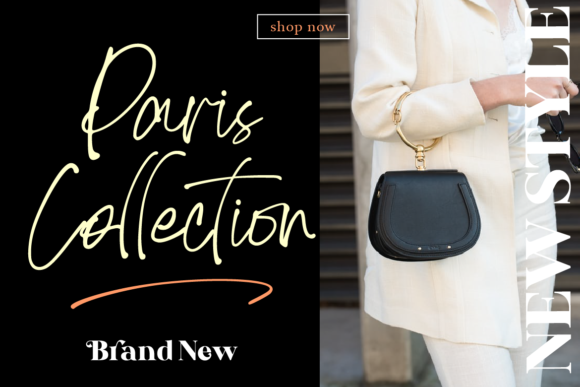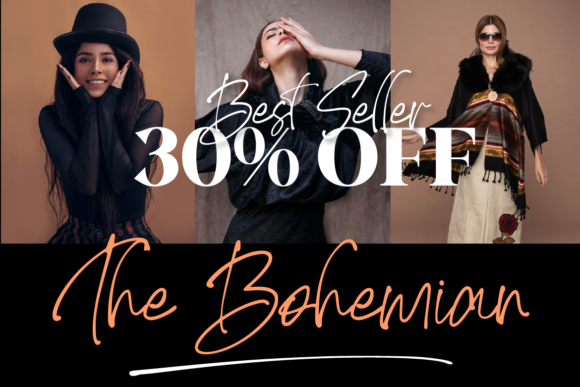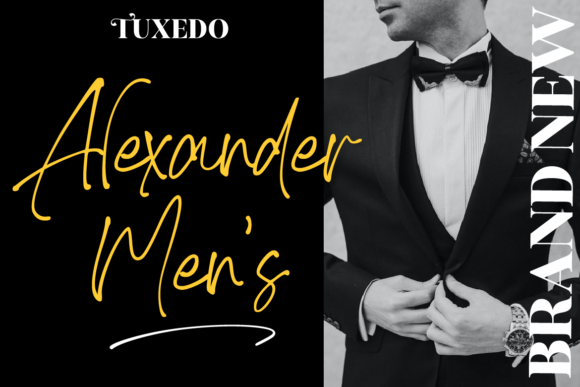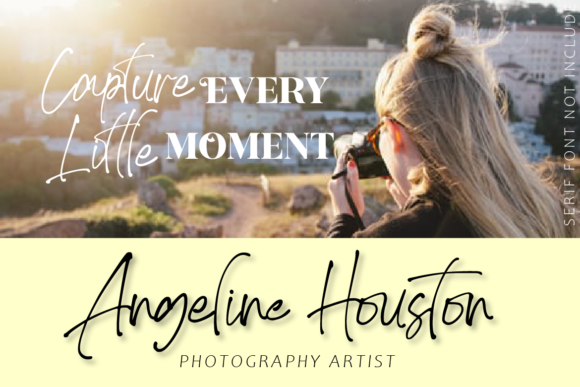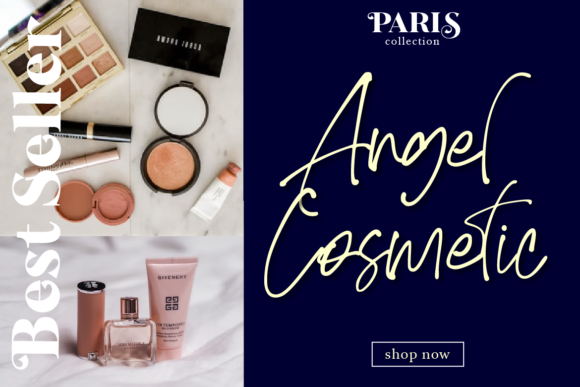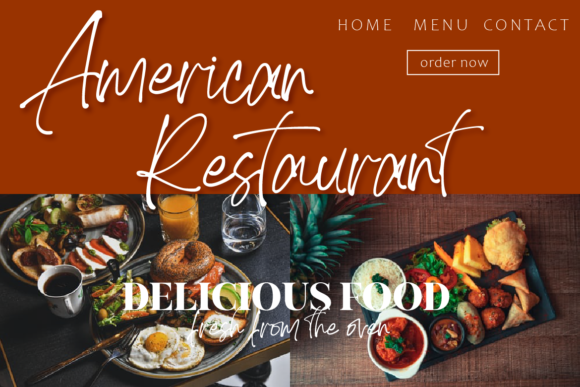
Aulendorf Font: Elevate Your Designs with Elegance and Charm
Are you on the hunt for a font that exudes sophistication and style? Look no further than the Aulendorf Font. This beautiful typeface has captured the hearts of designers and crafters alike with its charming and elegant aesthetic. In this article, we’ll dive into the world of Aulendorf Font and explore its features, benefits, and uses.
The Aulendorf Font: A Stylish and Thin Vibe
Aulendorf Font is a stunning example of modern typography. Its sleek and slender lines make it perfect for designs that require a touch of sophistication. Whether you’re working on a logo, branding materials, or digital content, Aulendorf Font is sure to make a statement. Its stylish vibe is unmatched, and it’s sure to elevate your designs to new heights.
One of the standout features of Aulendorf Font is its PUA (Private Use Area) encoding. This means that you can access all of the glyphs and swashes with ease, giving you unparalleled creative control. With PUA encoding, you can effortlessly navigate the font’s extensive character set, including ligatures, ornaments, and stylistic alternates.
Why Aulendorf Font is a Hit with Designers and Crafters
Aulendorf Font has quickly become a favorite among designers and crafters, and for good reason. Its versatility and elegance make it perfect for a wide range of projects, from:
- Digital content, such as e-books and blogs
- Print materials, like brochures and posters
- Crafting projects, including card making and scrapbooking
Whether you’re a seasoned designer or a crafting enthusiast, Aulendorf Font is sure to become a go-to in your collection.
The Benefits of Using Aulendorf Font
So, what sets Aulendorf Font apart from other fonts on the market? Here are just a few benefits of using this stunning typeface:
- Elegance and sophistication: Aulendorf Font adds a touch of refinement to any design.
- Versatility: Use it for a wide range of projects, from digital content to print materials.
- Easy to use: PUA encoding makes it simple to access glyphs and swashes.
- Unique and stylish: Stand out from the crowd with Aulendorf Font’s distinctive aesthetic.
Tips for Getting the Most Out of Aulendorf Font
To make the most of Aulendorf Font, here are a few tips to keep in mind:
- Experiment with different sizes: Aulendorf Font looks stunning in a range of sizes, from large headings to smaller body text.
- Pair it with complementary fonts: Try pairing Aulendorf Font with other elegant typefaces for a striking contrast.
- Take advantage of glyphs and swashes: Use PUA encoding to access the font’s extensive character set and add visual interest to your designs.
In conclusion, Aulendorf Font is a must-have for any designer or crafter looking to elevate their designs with elegance and charm. Its stylish and thin vibe, combined with PUA encoding, make it a versatile and easy-to-use typeface that’s perfect for a wide range of projects. Whether you’re working on a logo, digital content, or crafting project, Aulendorf Font is sure to make a lasting impression.